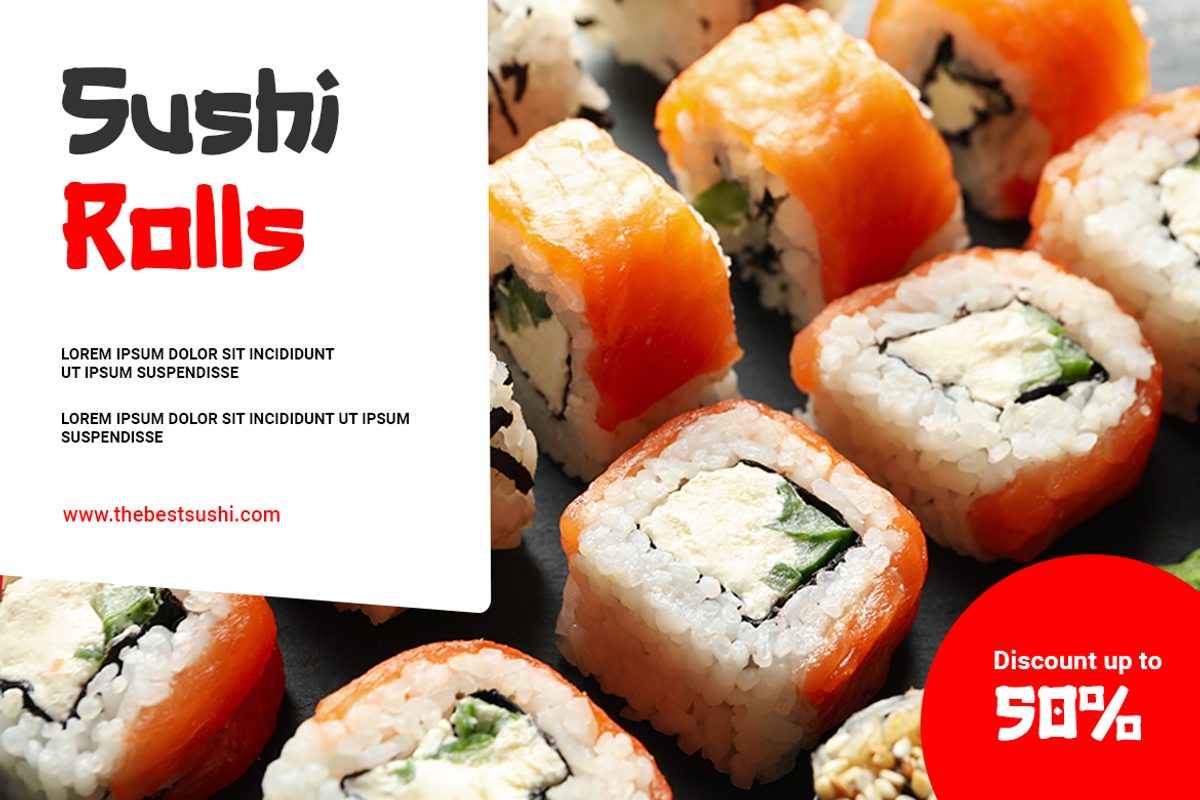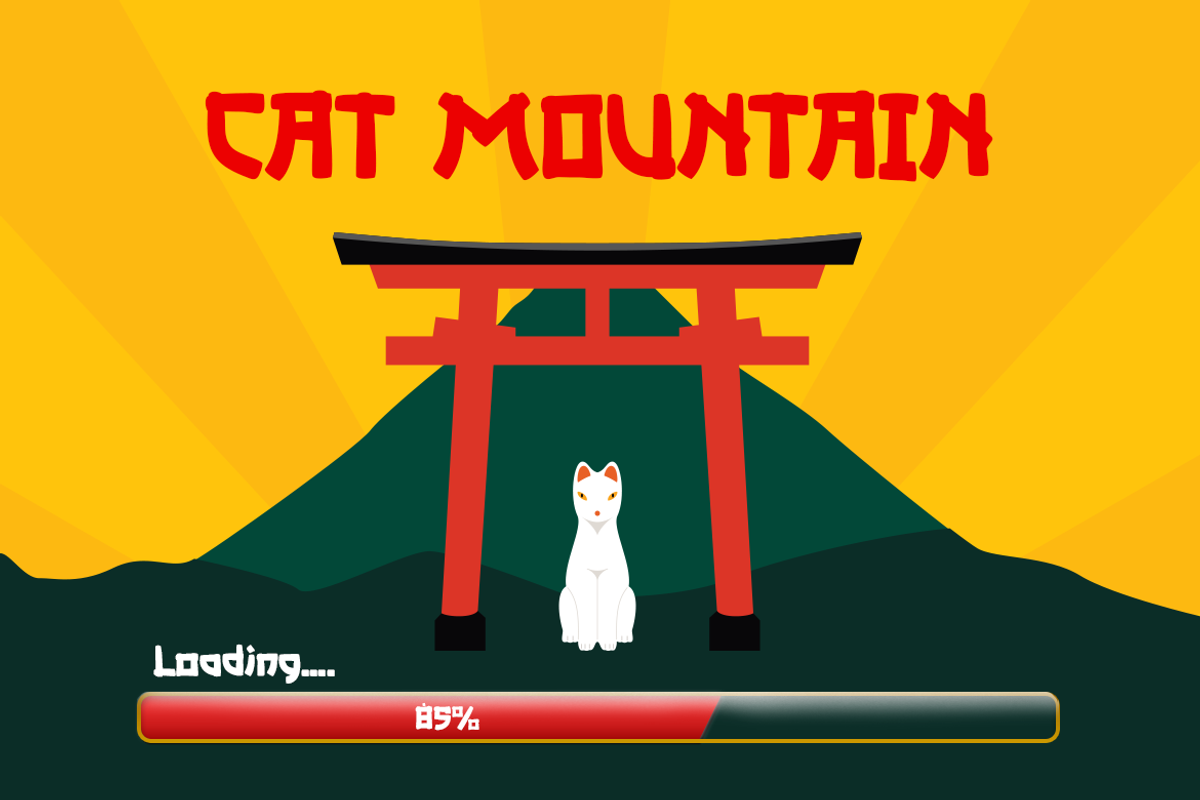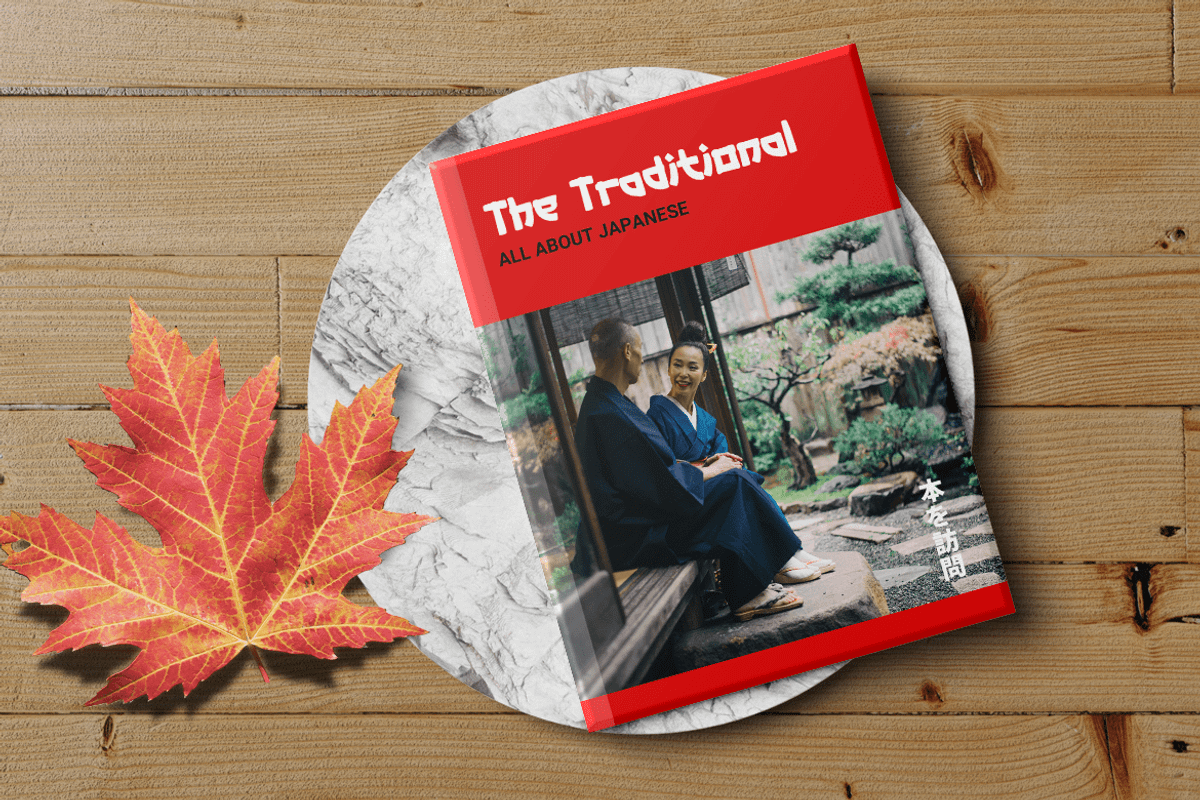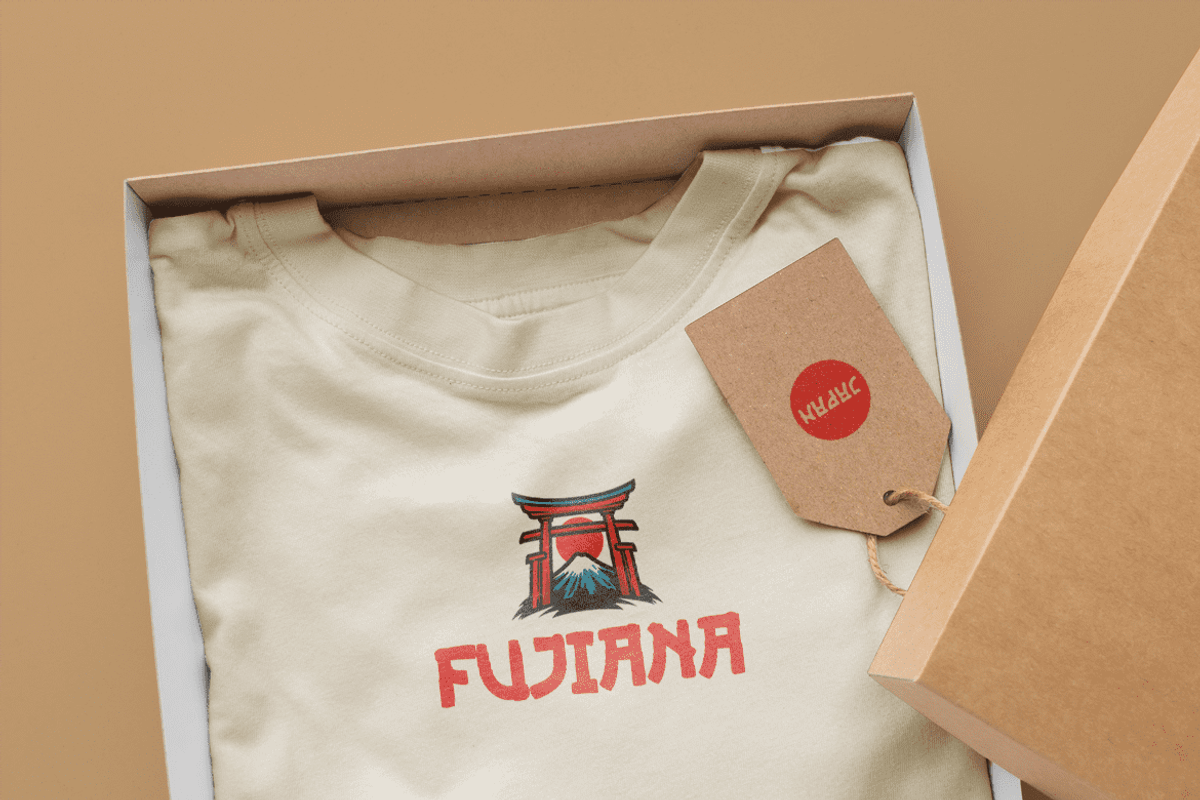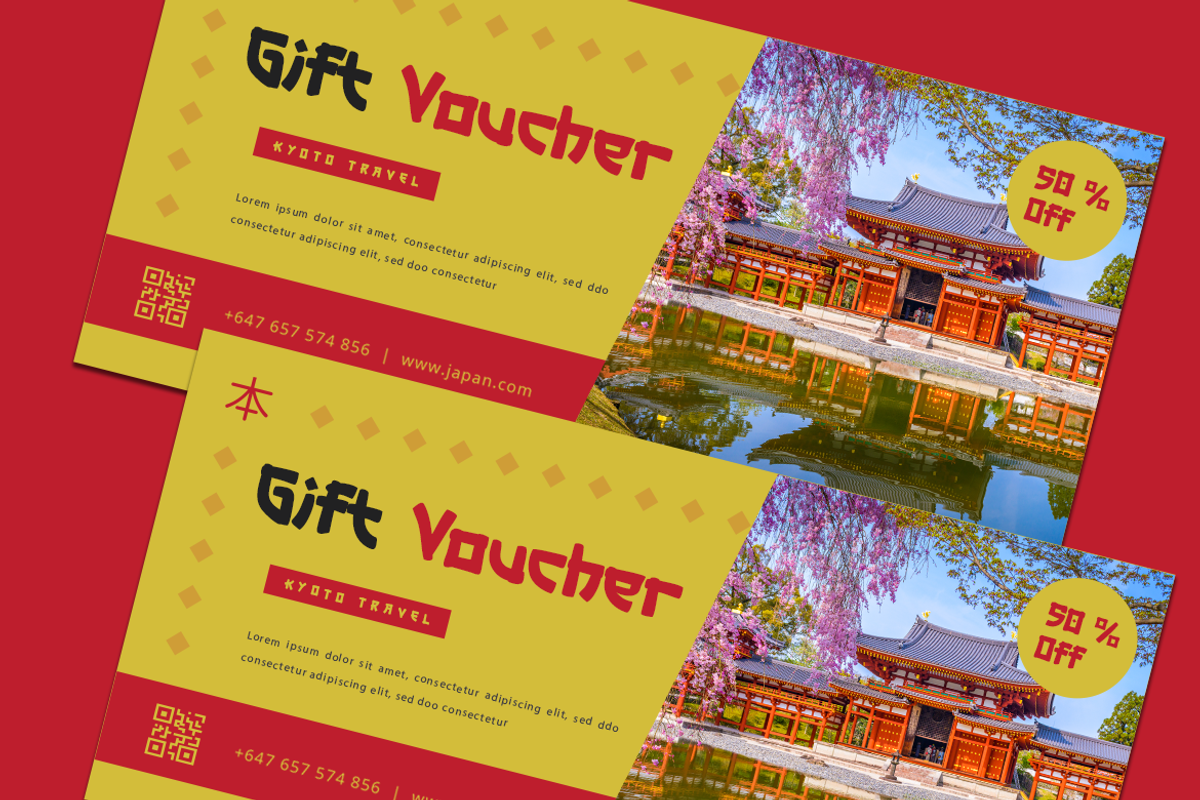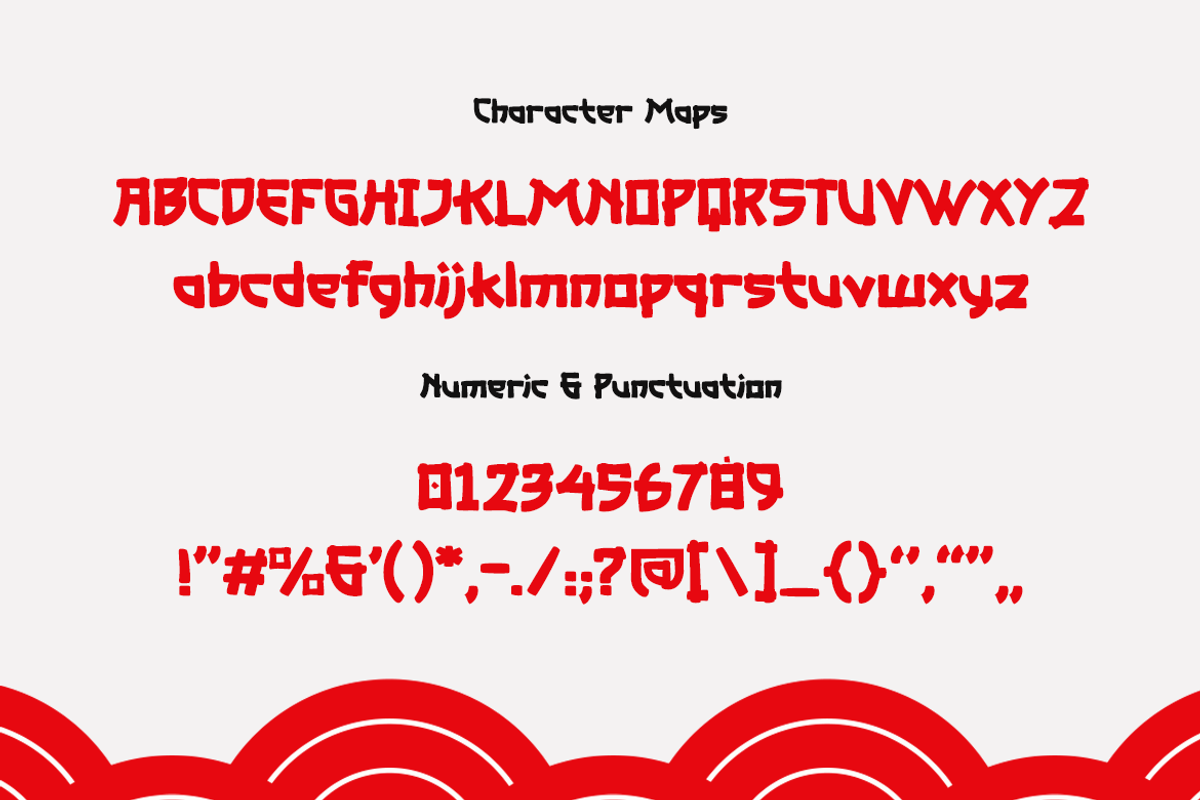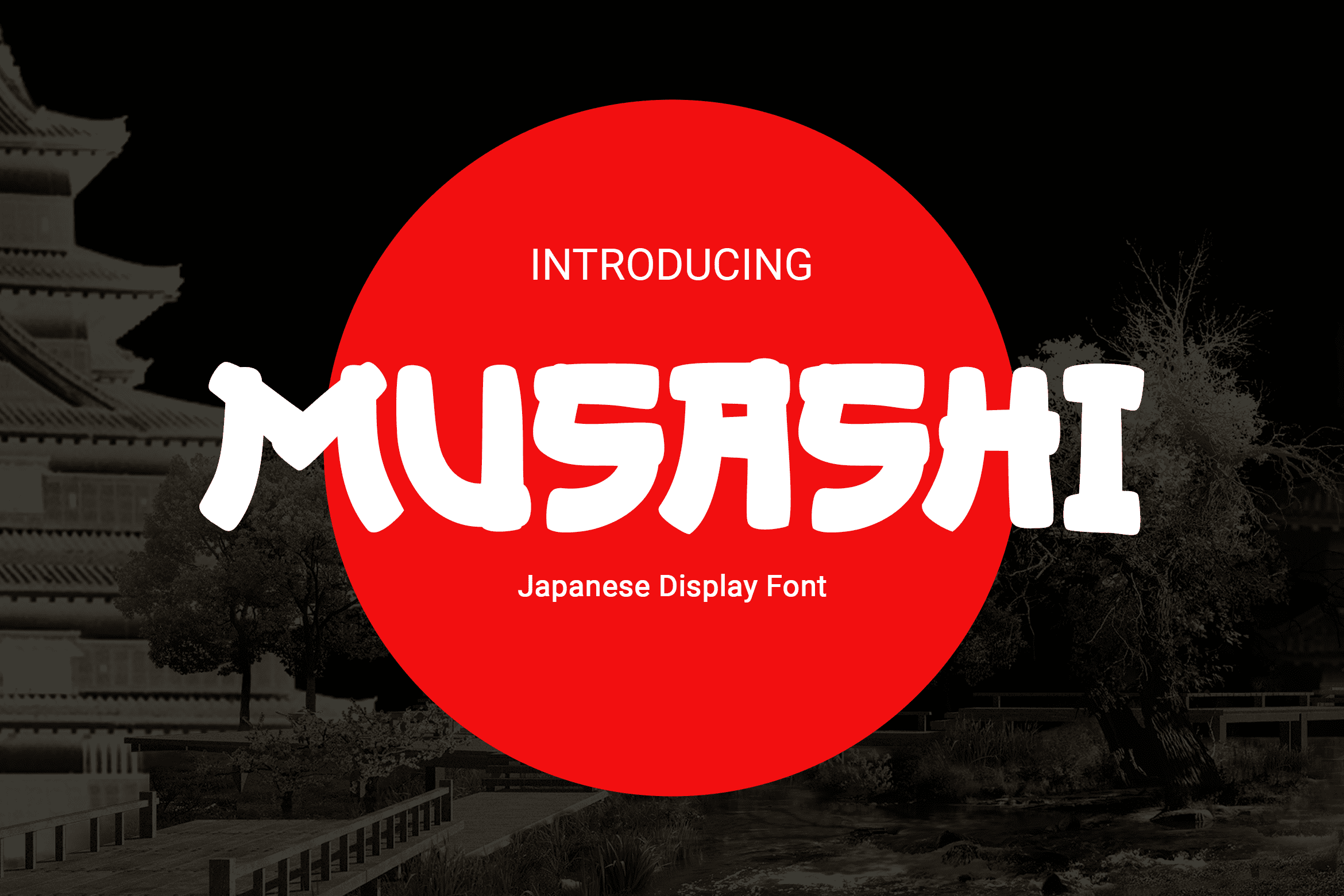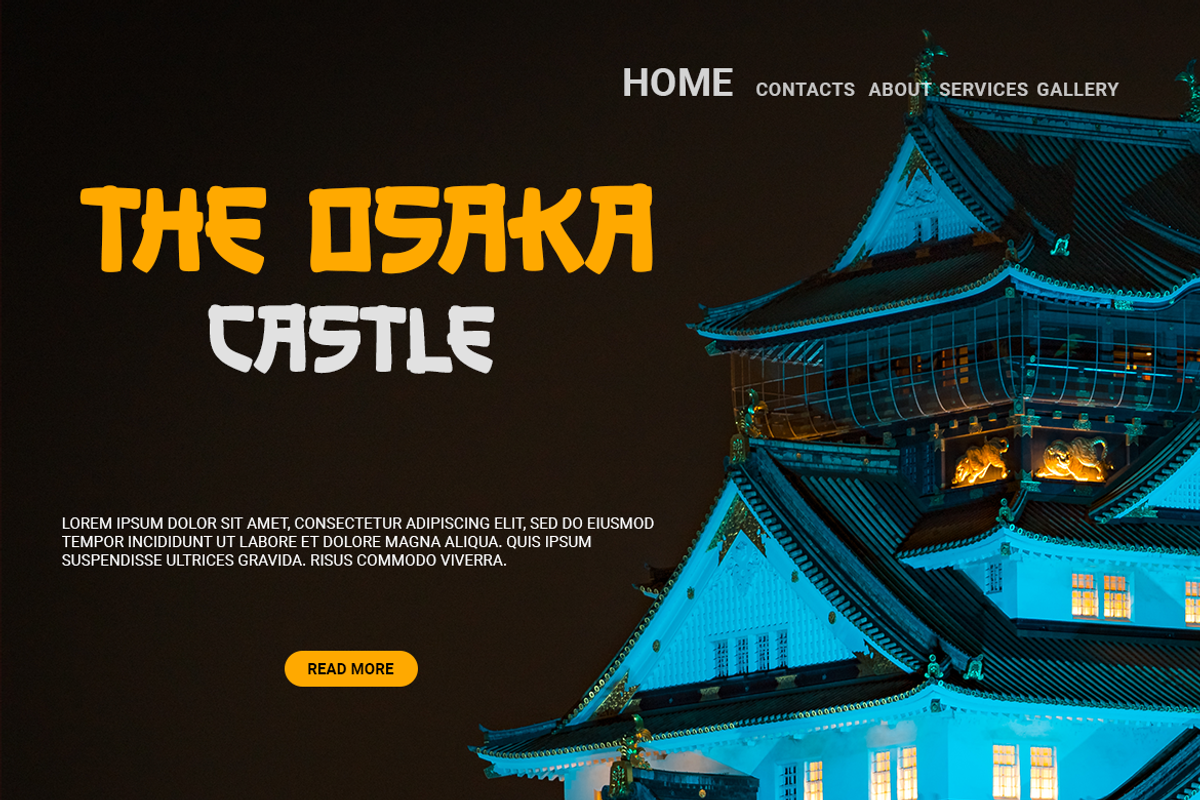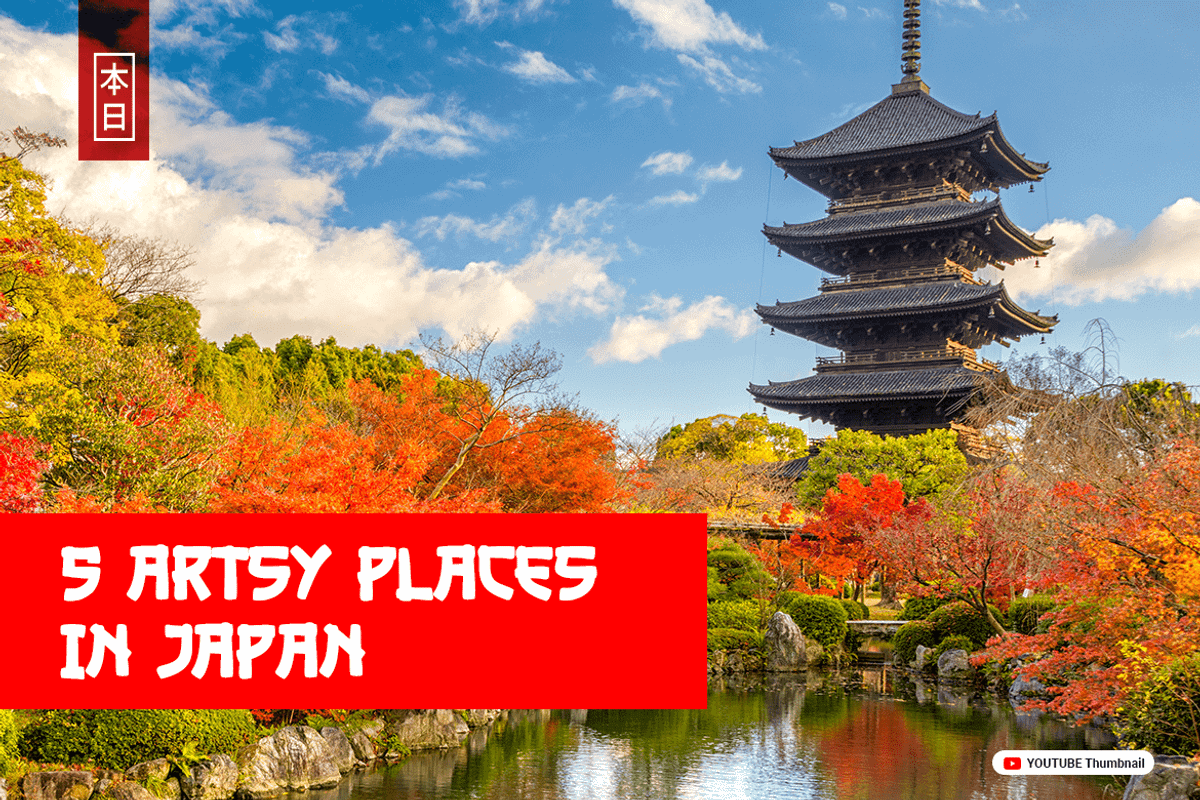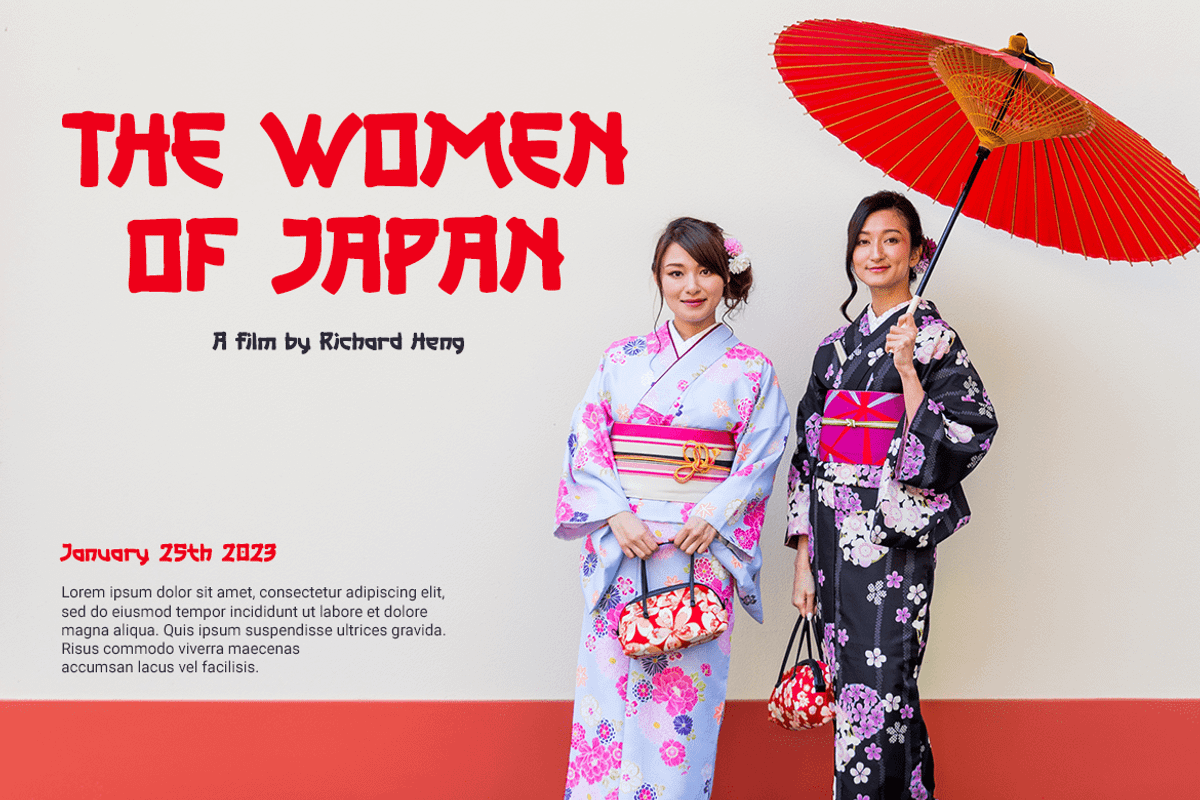
MUSASHI – Japanese Display Font
MUSASHI is the ultimate display font for anyone looking to add a touch of Japanese flair to their designs. This stunning font features intricate Japanese characters that will make any poster or design stand out.
As a display font, MUSASHI is perfect for larger sizes, making it ideal for creating attention-grabbing headlines and titles. The bold strokes and sharp edges of the characters make it a font that demands attention and adds a unique touch to any project.
In addition to being a Japanese font, MUSASHI is also versatile enough to be used for other Asian languages, such as Chinese. This makes it an excellent choice for designers looking for an “Asia font” that can be used across multiple languages.
MUSASHI is the perfect font for YouTubers looking to add a touch of Japanese style to their channels. Its bold and striking design will instantly grab the attention of viewers, while its legibility ensures that your content is easy to read.
Whether you’re designing a poster, creating a YouTube channel, or building a game interface, MUSASHI is the ultimate display font that will help your designs stand out. So why not give it a try and see how it can transform your next project?